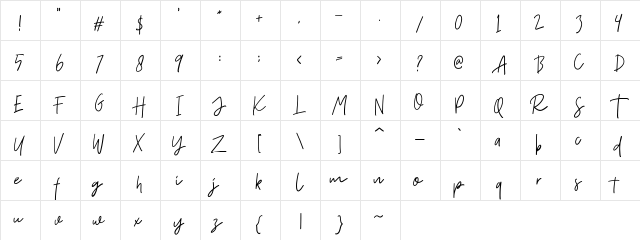
Fort Collins Script DEMO Regular
| Foundry | Letterhend Studio |
| Designer | Letterhend Studio |
Design Context for Fort Collins Script DEMO Typeface
Fort Collins Script DEMO brings a calligraphic fluidity to the page — its connecting strokes and expressive curves give it an unmistakably human quality.